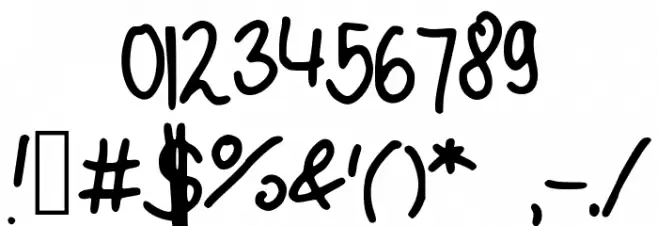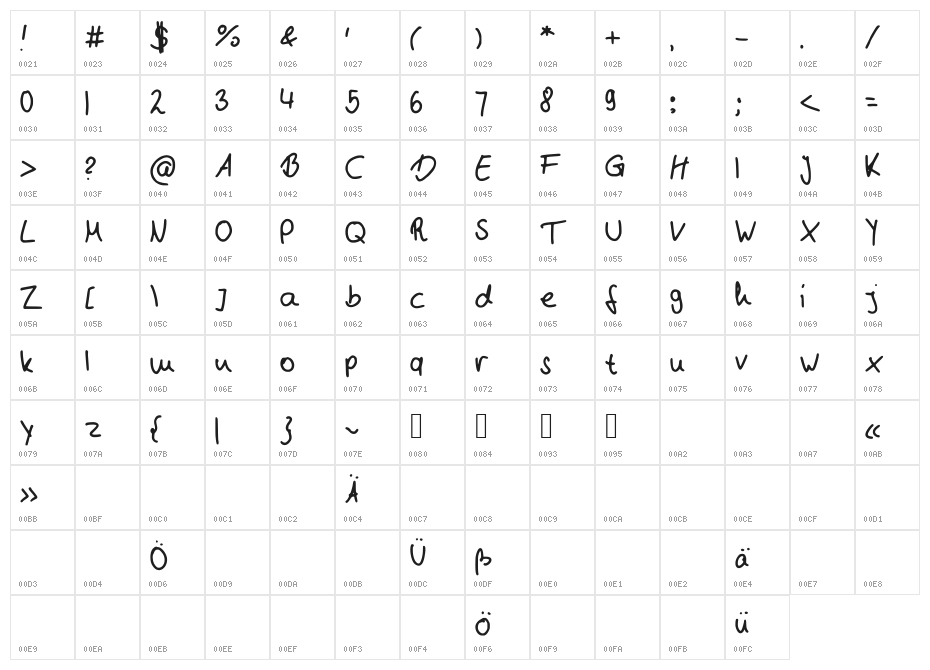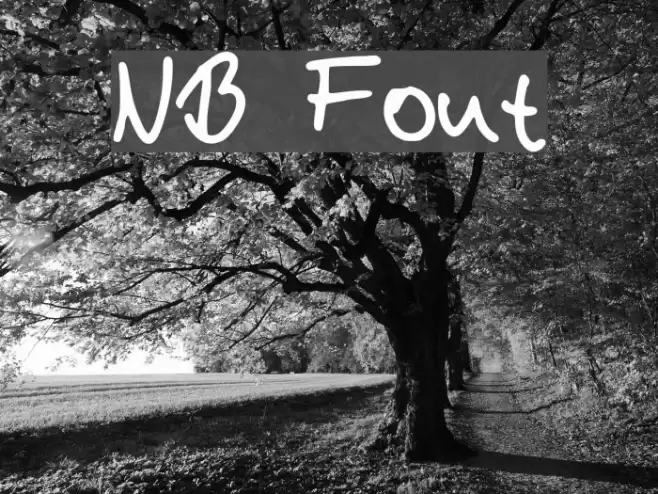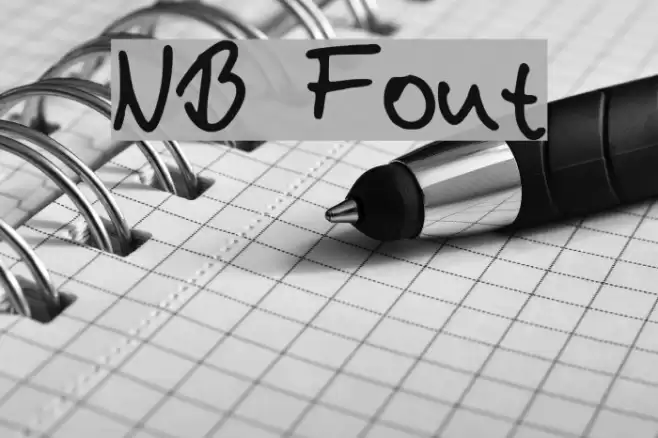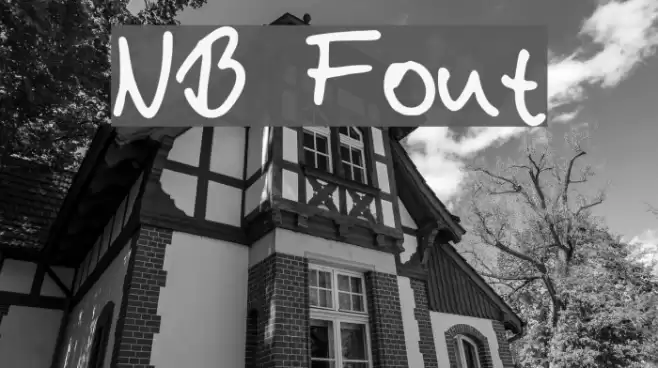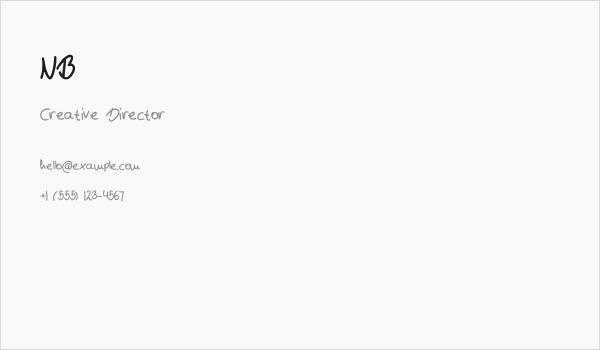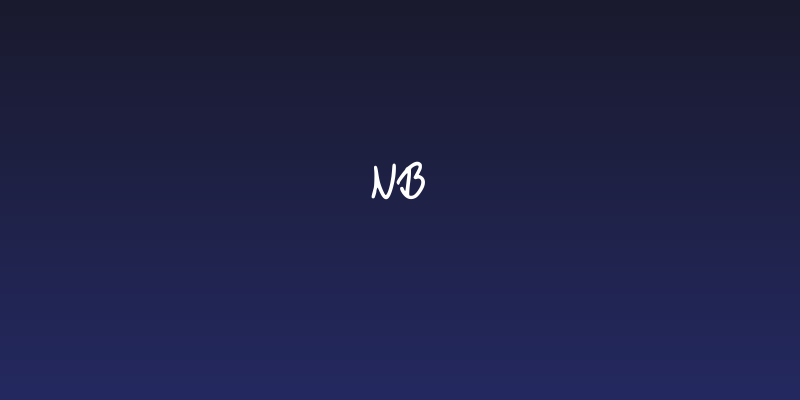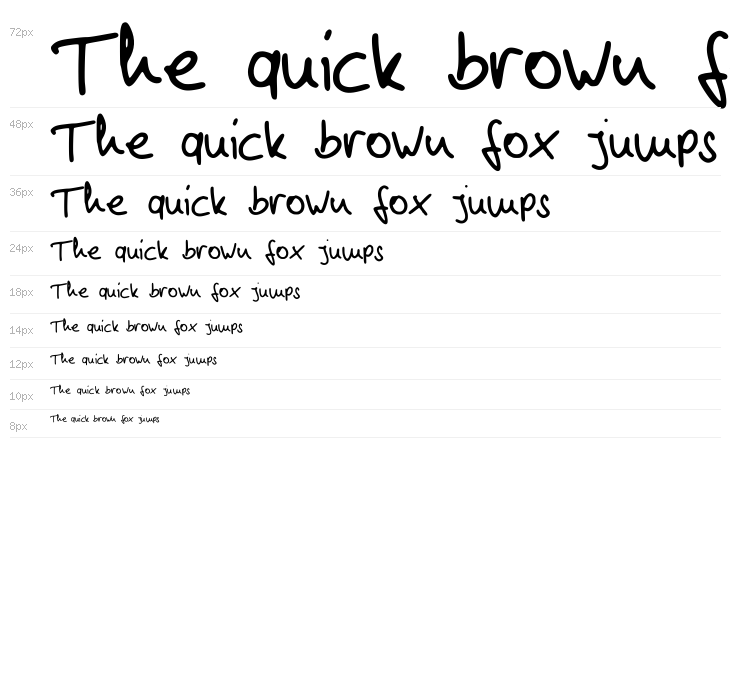
NB Font
NB Description
This font exhibits a playful and casual handwritten style, characterized by its free-flowing and slightly irregular letterforms. The uppercase and lowercase letters maintain a consistent stroke width, contributing to a uniform appearance despite the informal style. The numerals and special characters follow the same design principles, ensuring cohesion across all glyphs. The font's organic and spontaneous look makes it ideal for projects that require a personal touch or a relaxed aesthetic. Its readability is maintained even with the informal design, making it versatile for various applications.
| Proposed Projects | Ideal for greeting cards, personal branding, casual invitations, and playful social media graphics. |